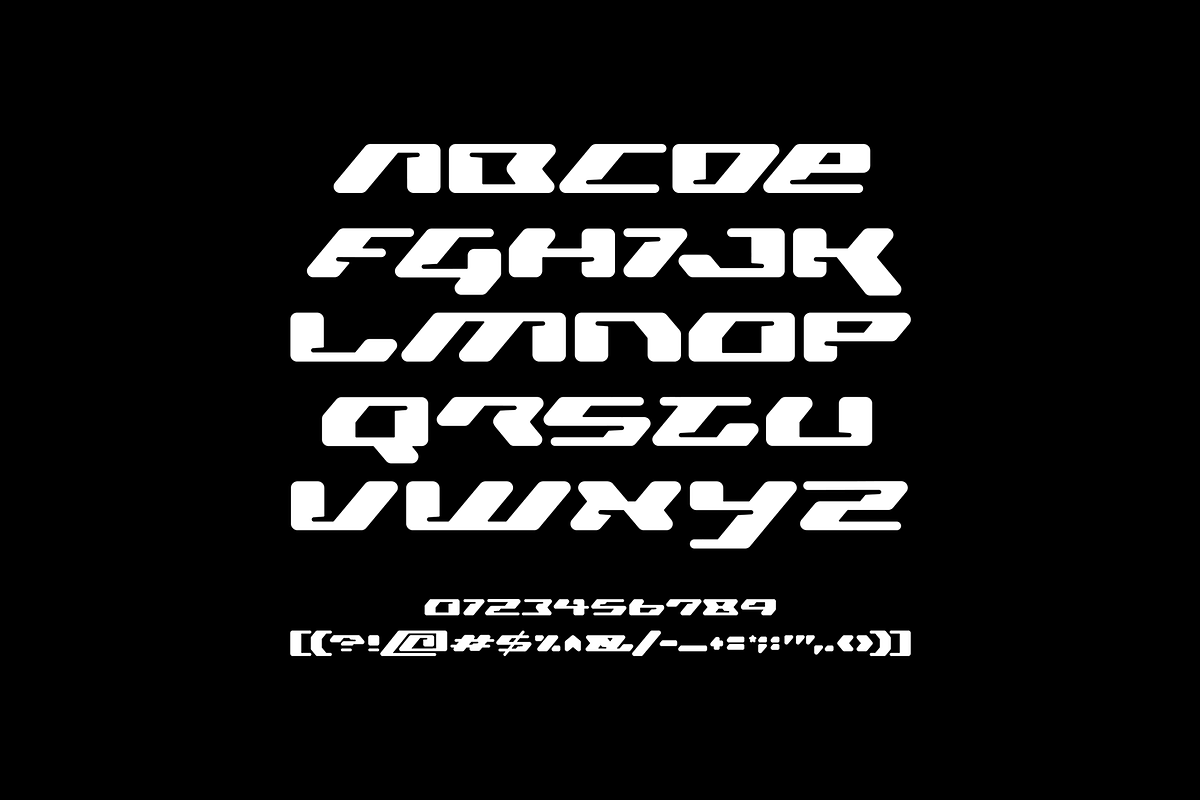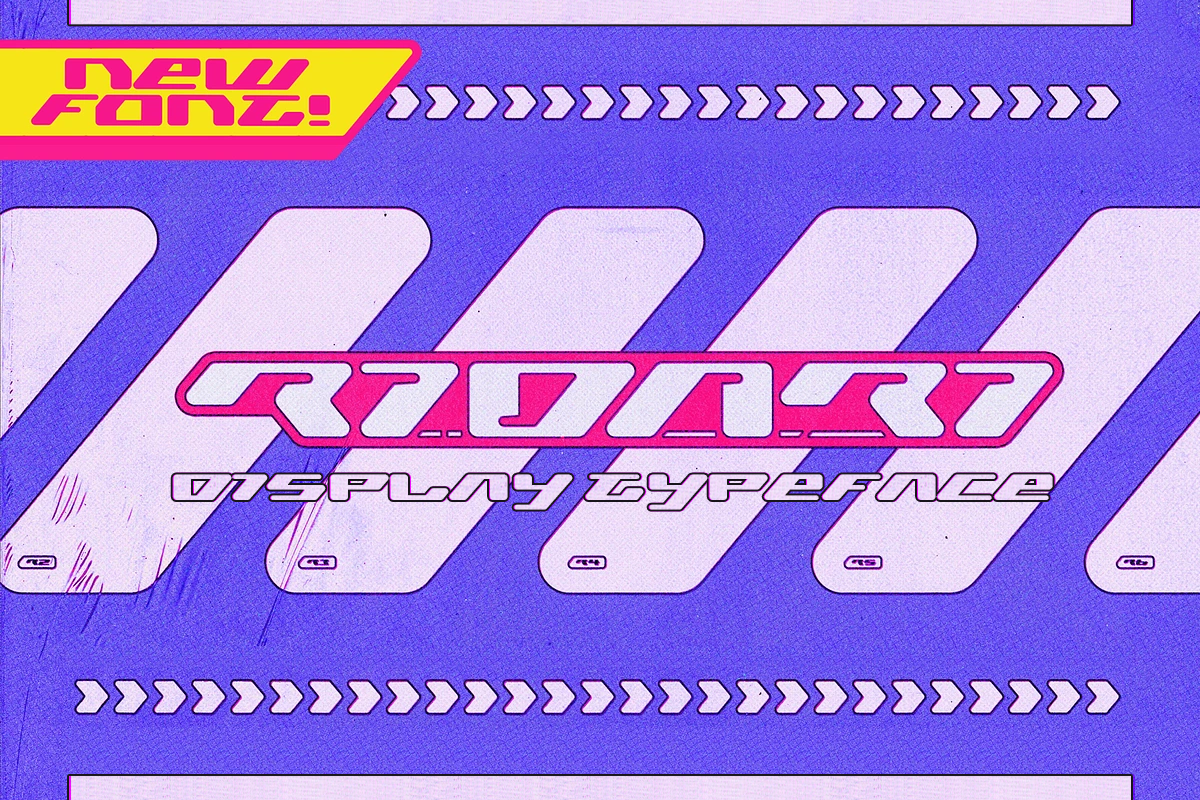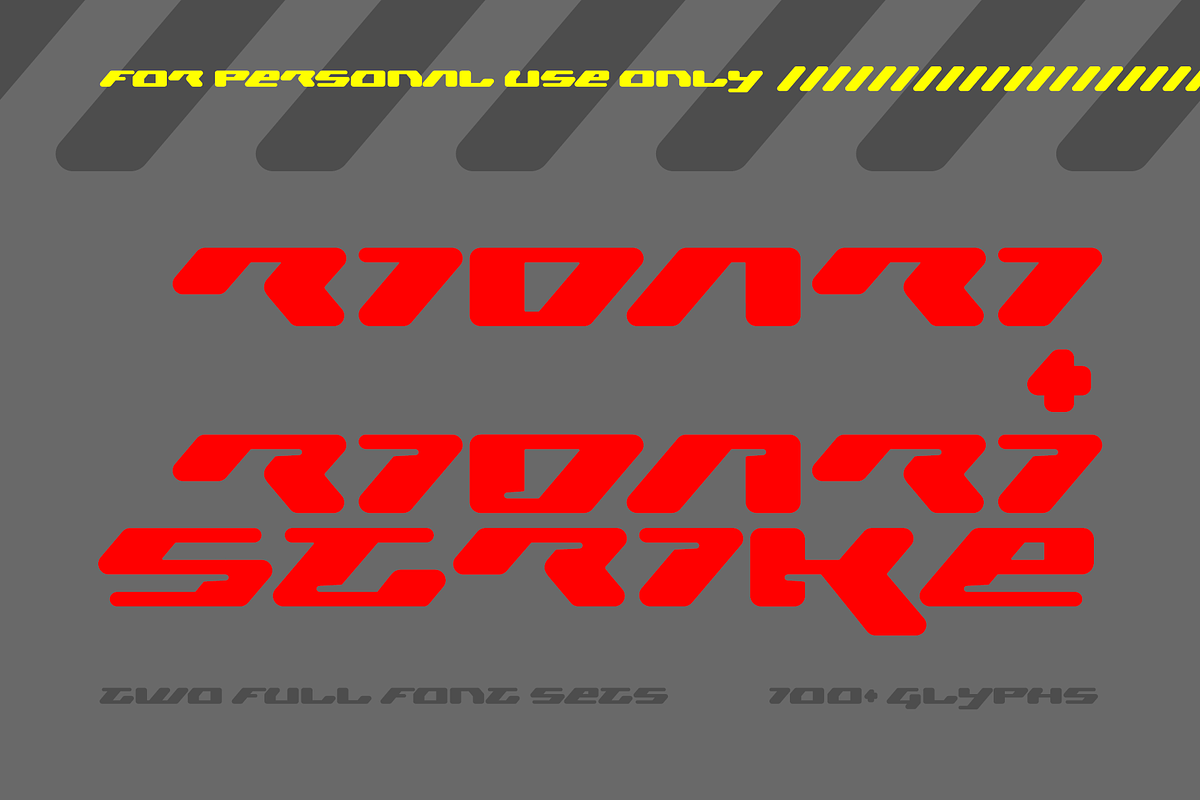
Ridari — Futuristic Sci-Fi Typeface
Ridari is a retro-futuristic sci-fi typeface designed by @jcnvx_
- Two font sets with 100+ glyphs
- Uppercase & Numerals.